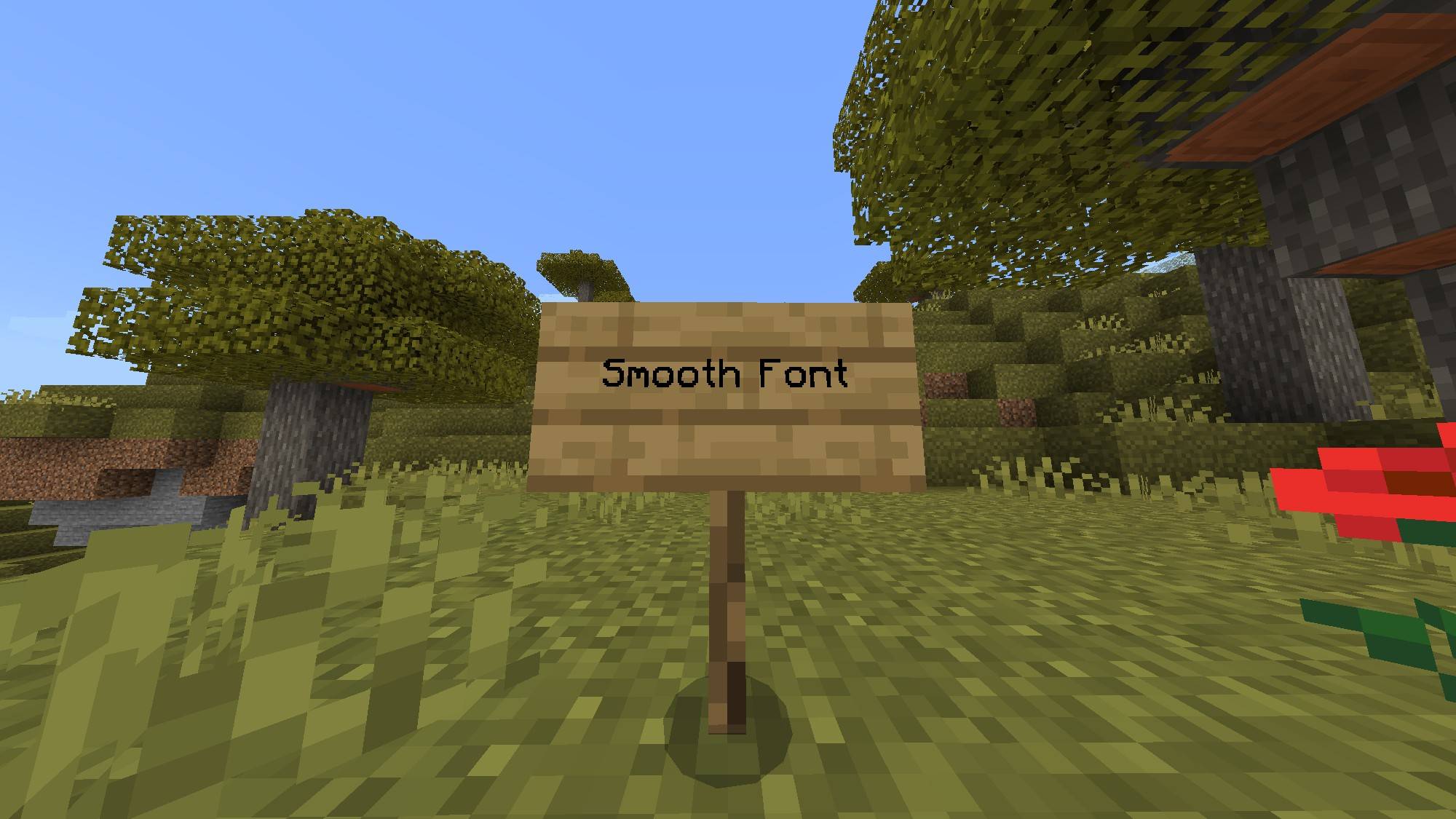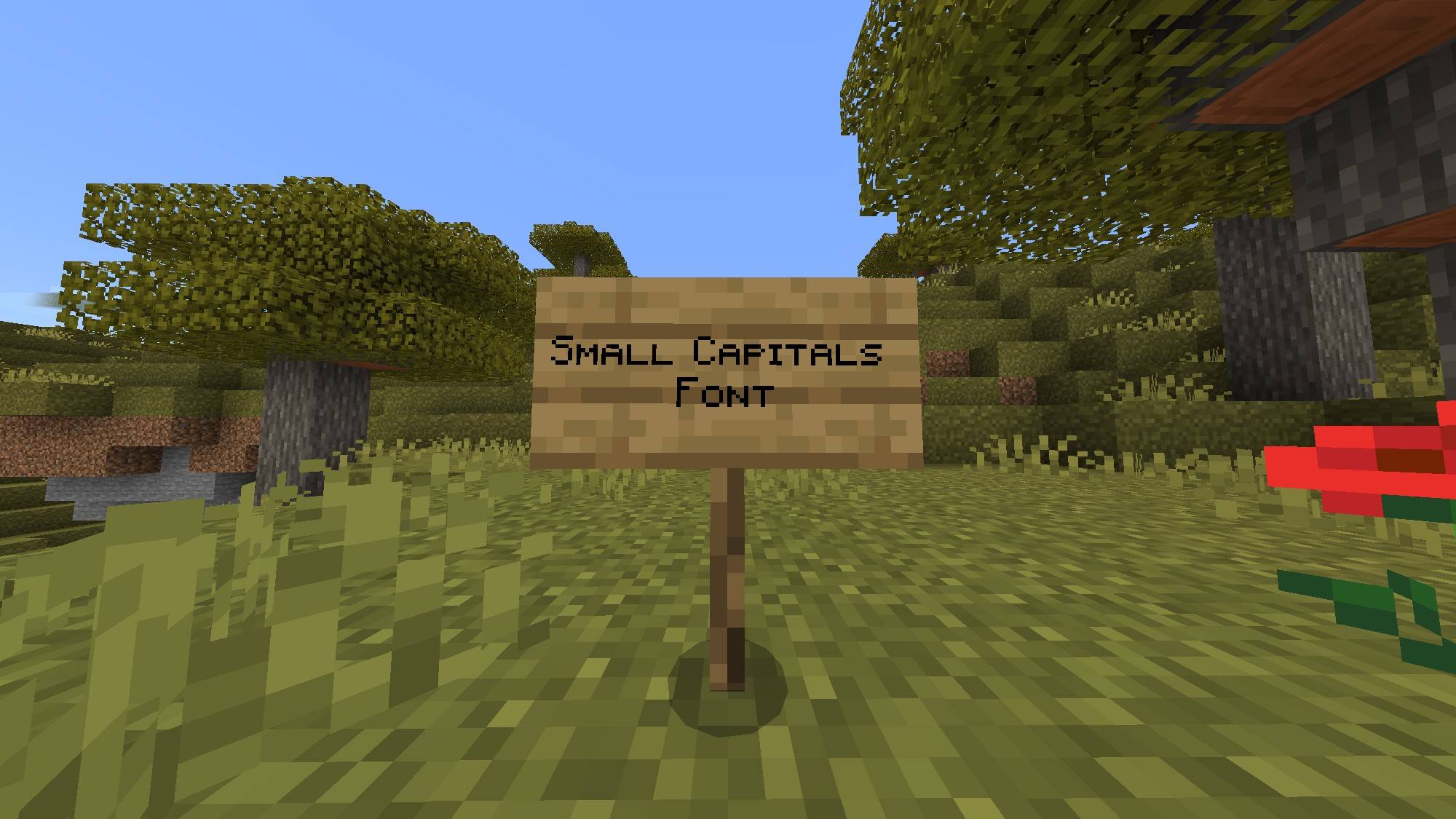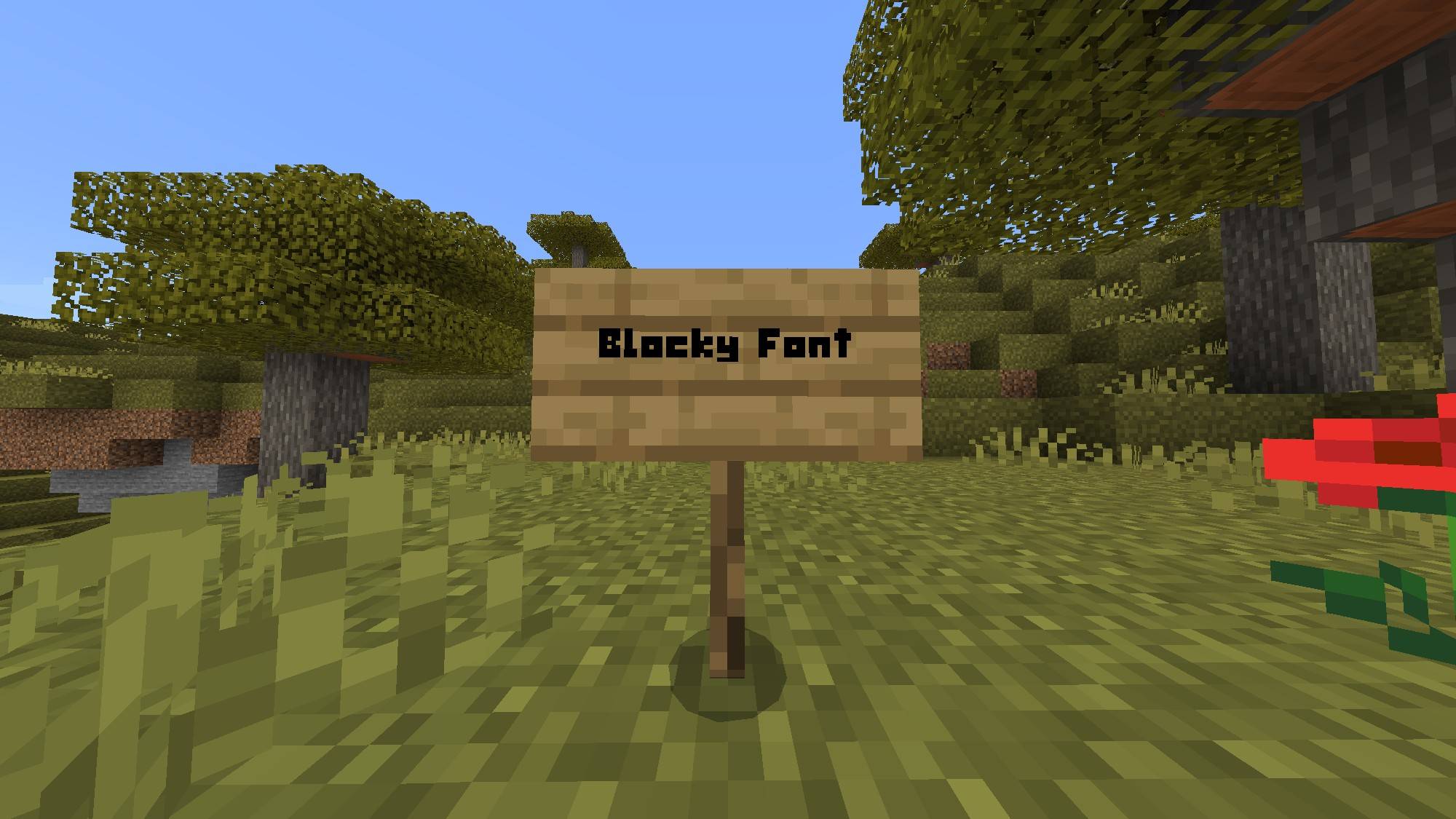
FONT+
Minecraft default font too boring? Try this pack! with 5 unique fonts to see which one u like!
This texture pack adds more customization to ur Minecraft by changing fonts! u can choose from 5 Different fonts!
- Smooth Font
- Small Capital Font
- Square Font
- Doodle Font
- Blocky Font
Why did I make this?
To quickly customize ur game with more fun fonts!